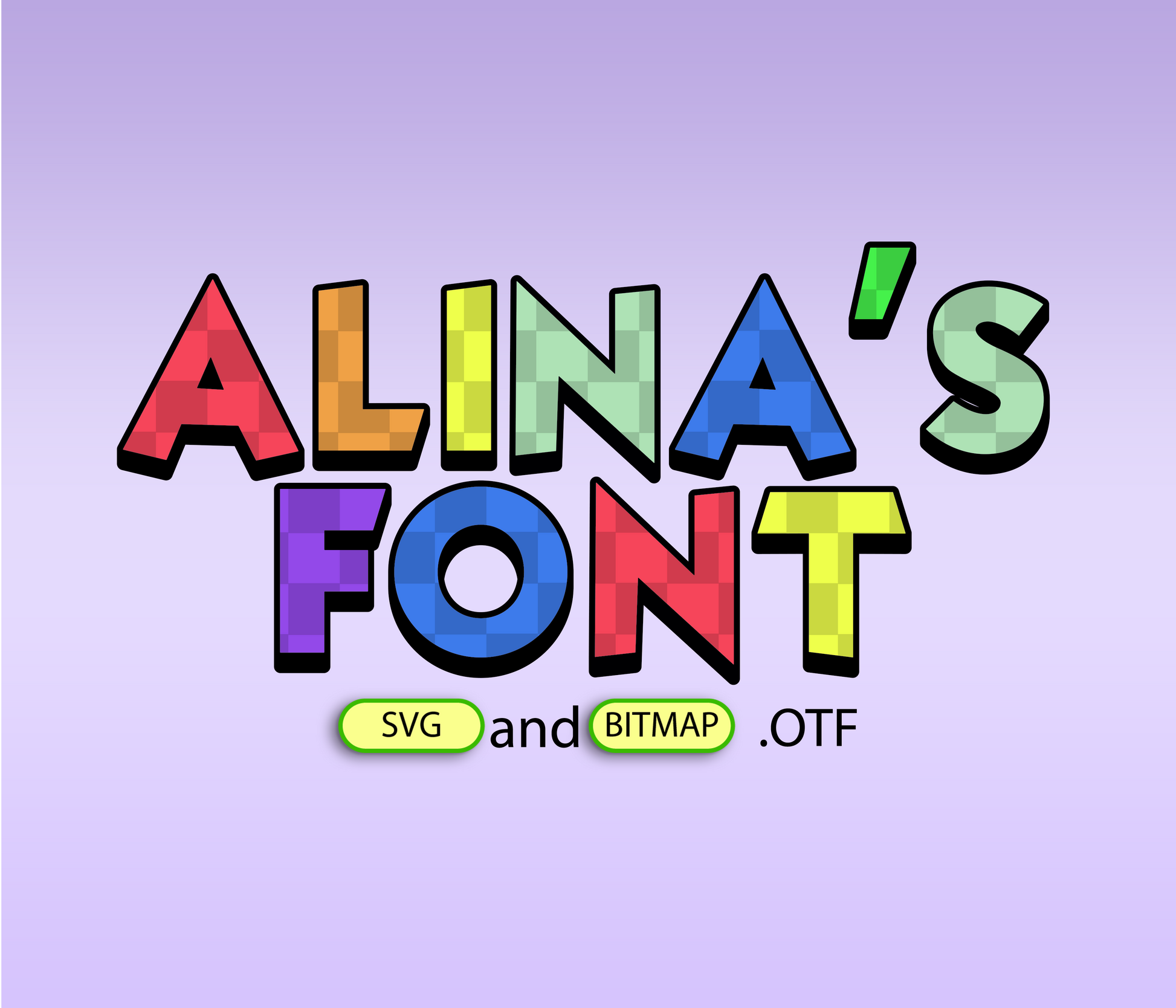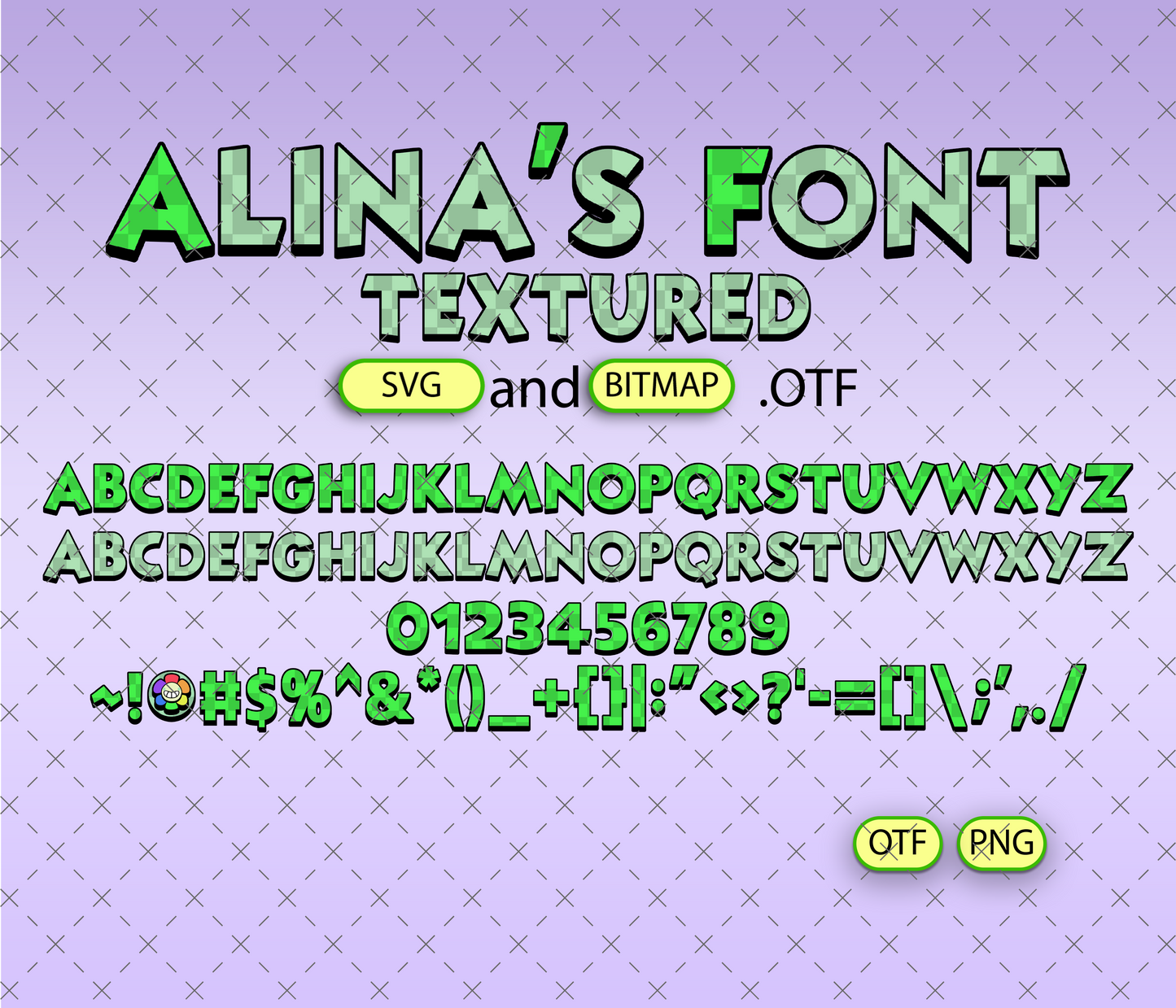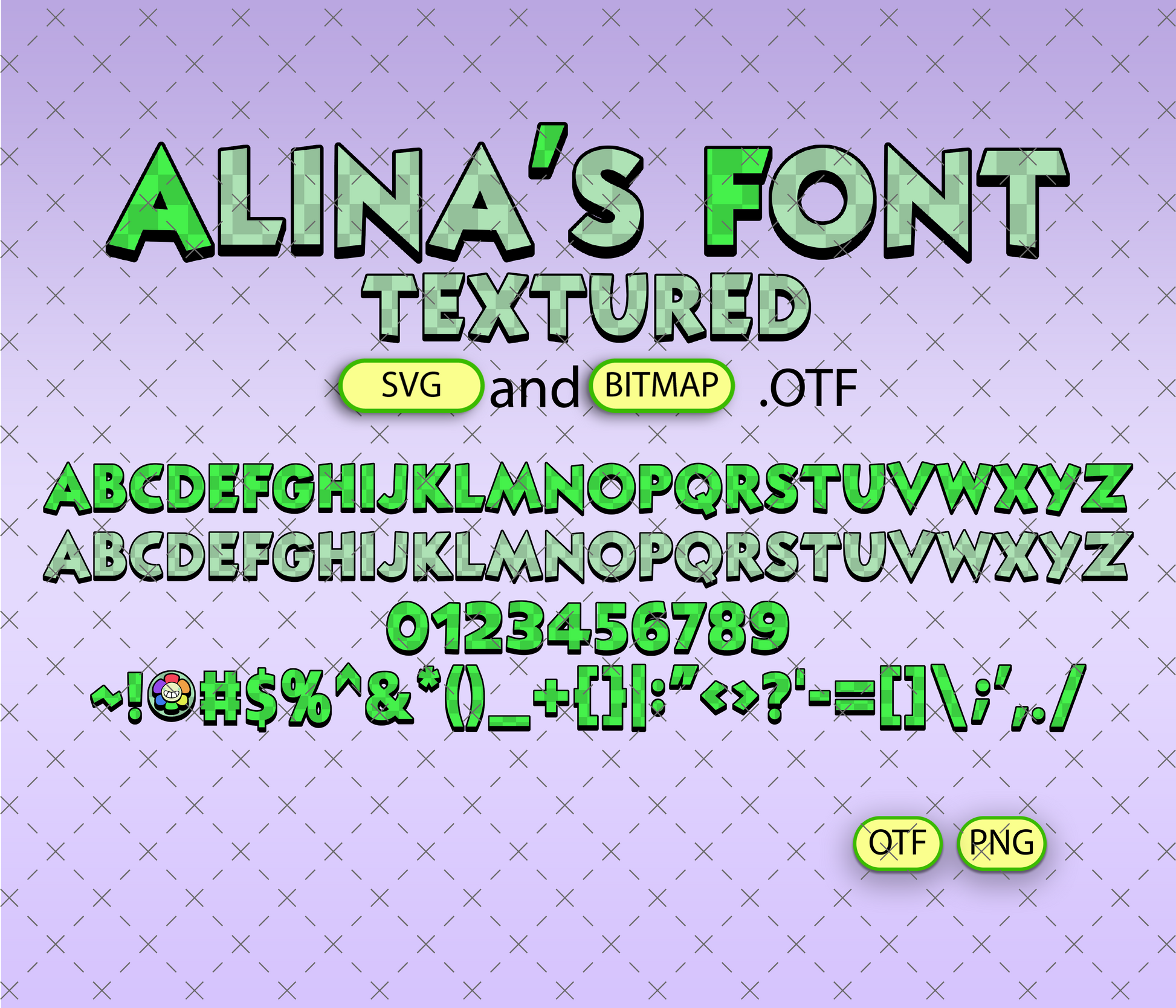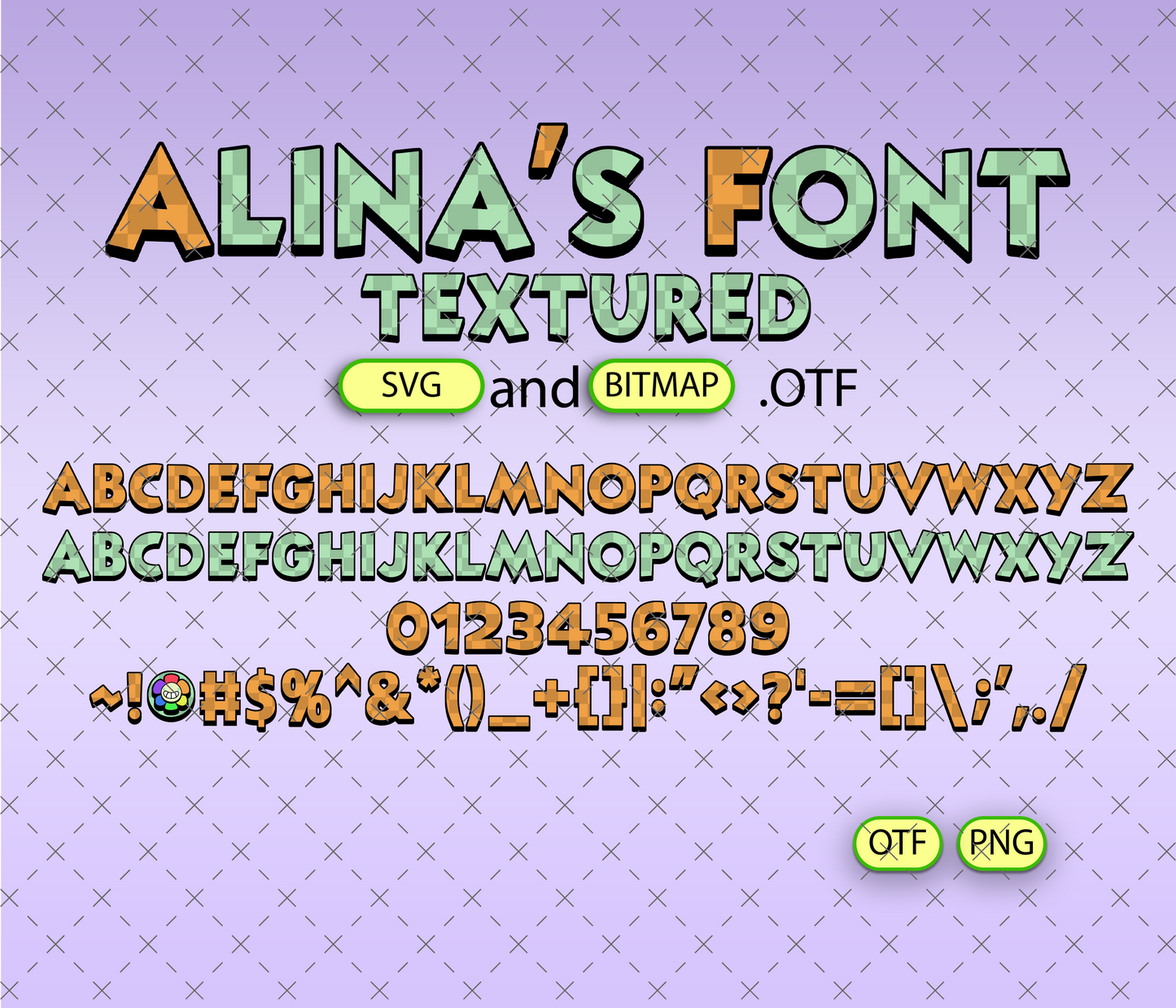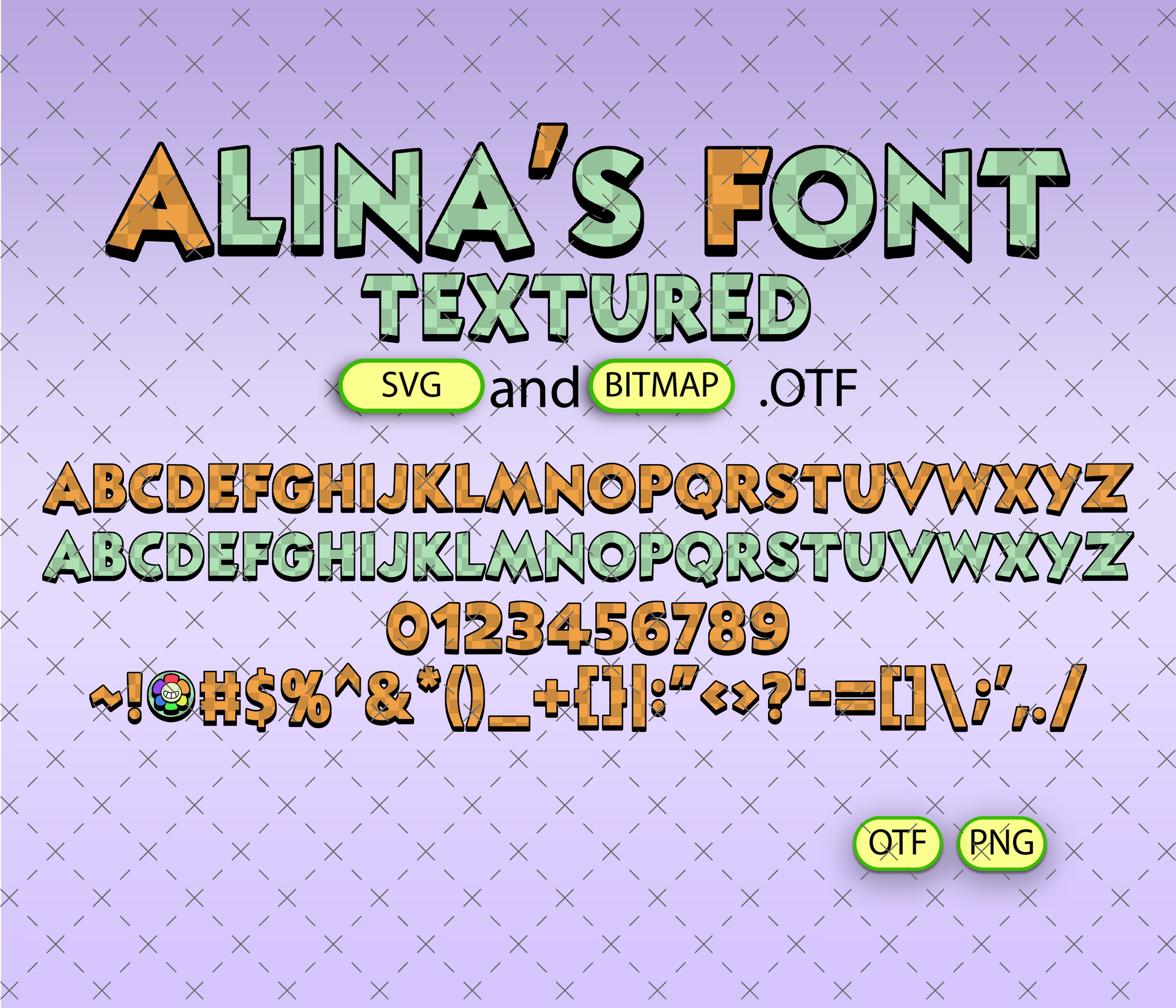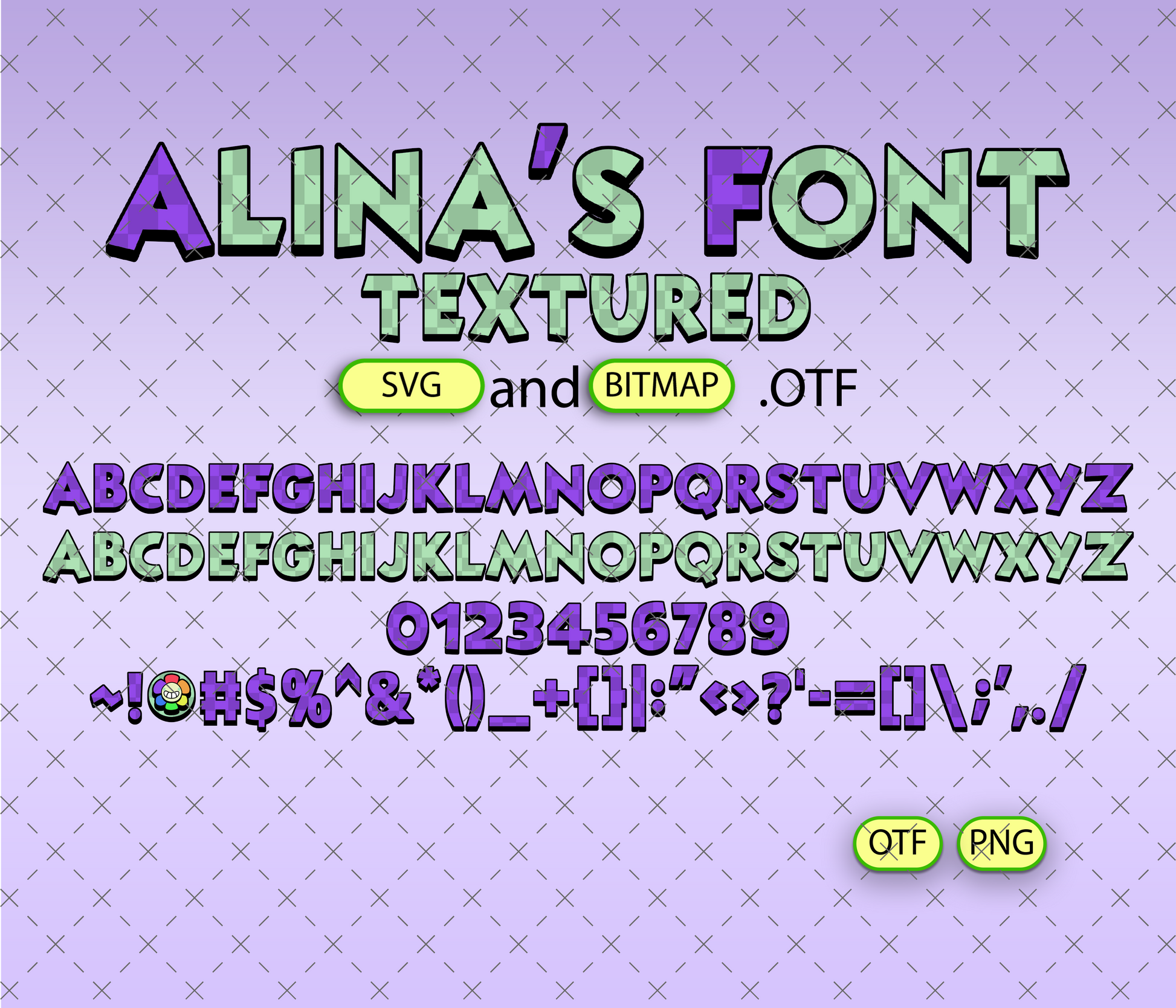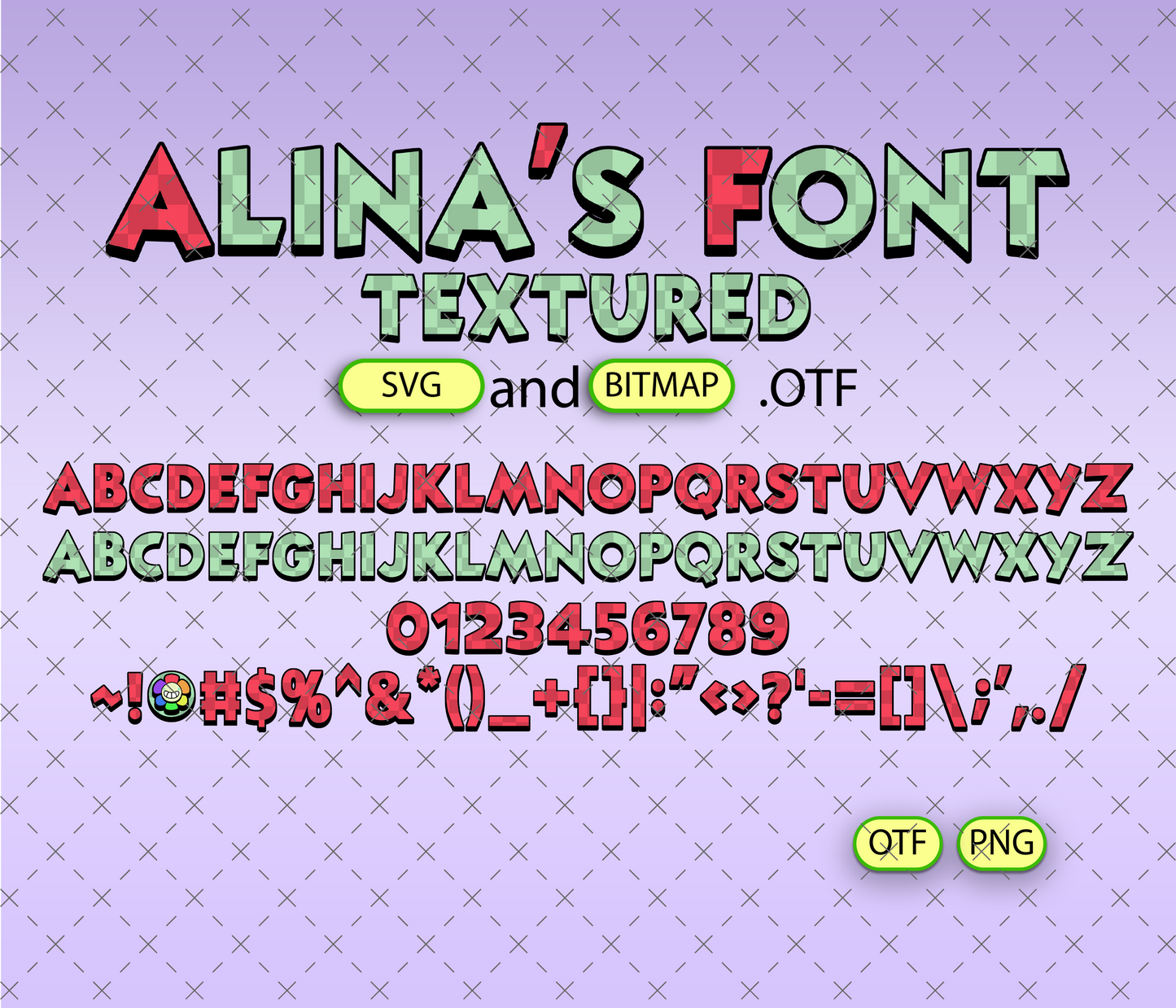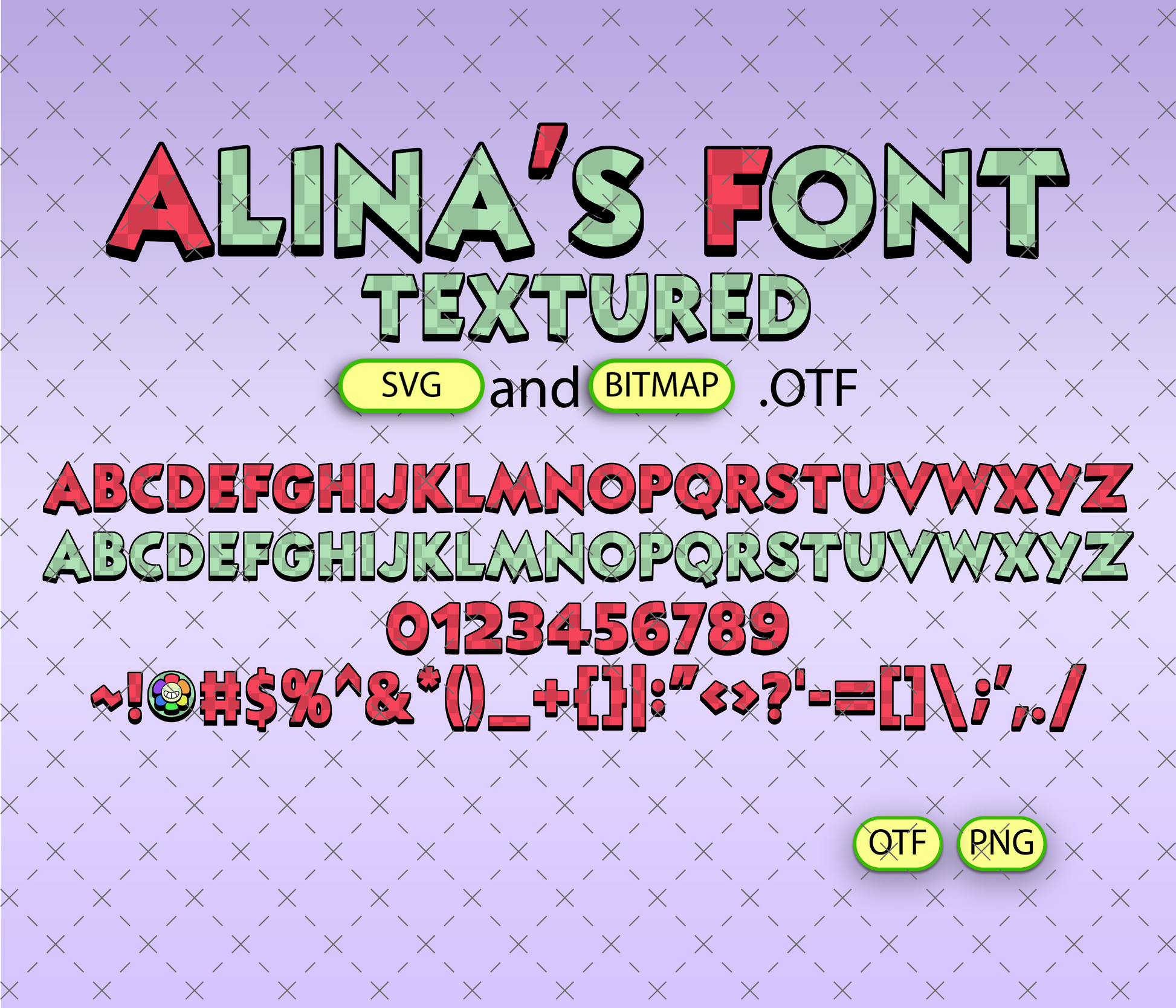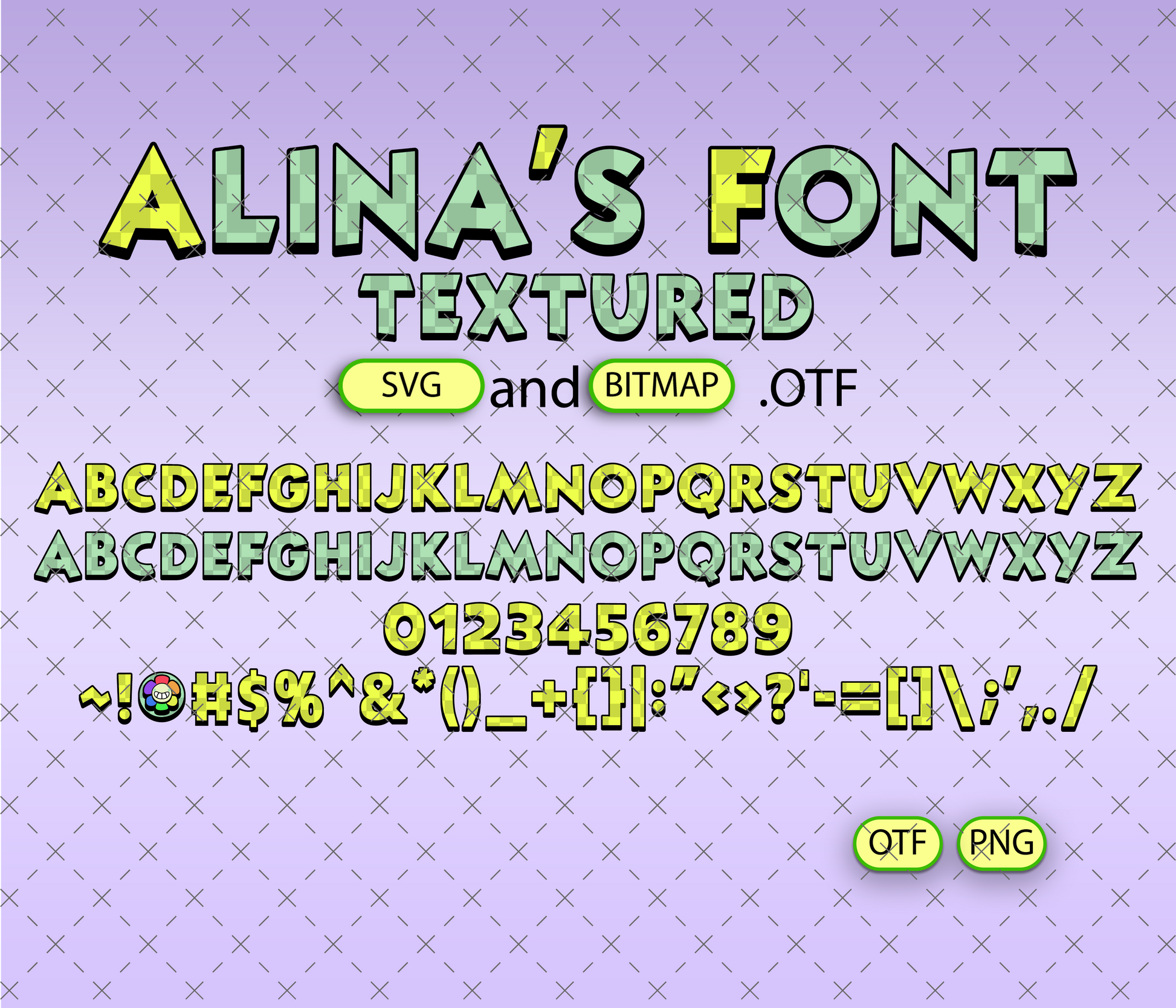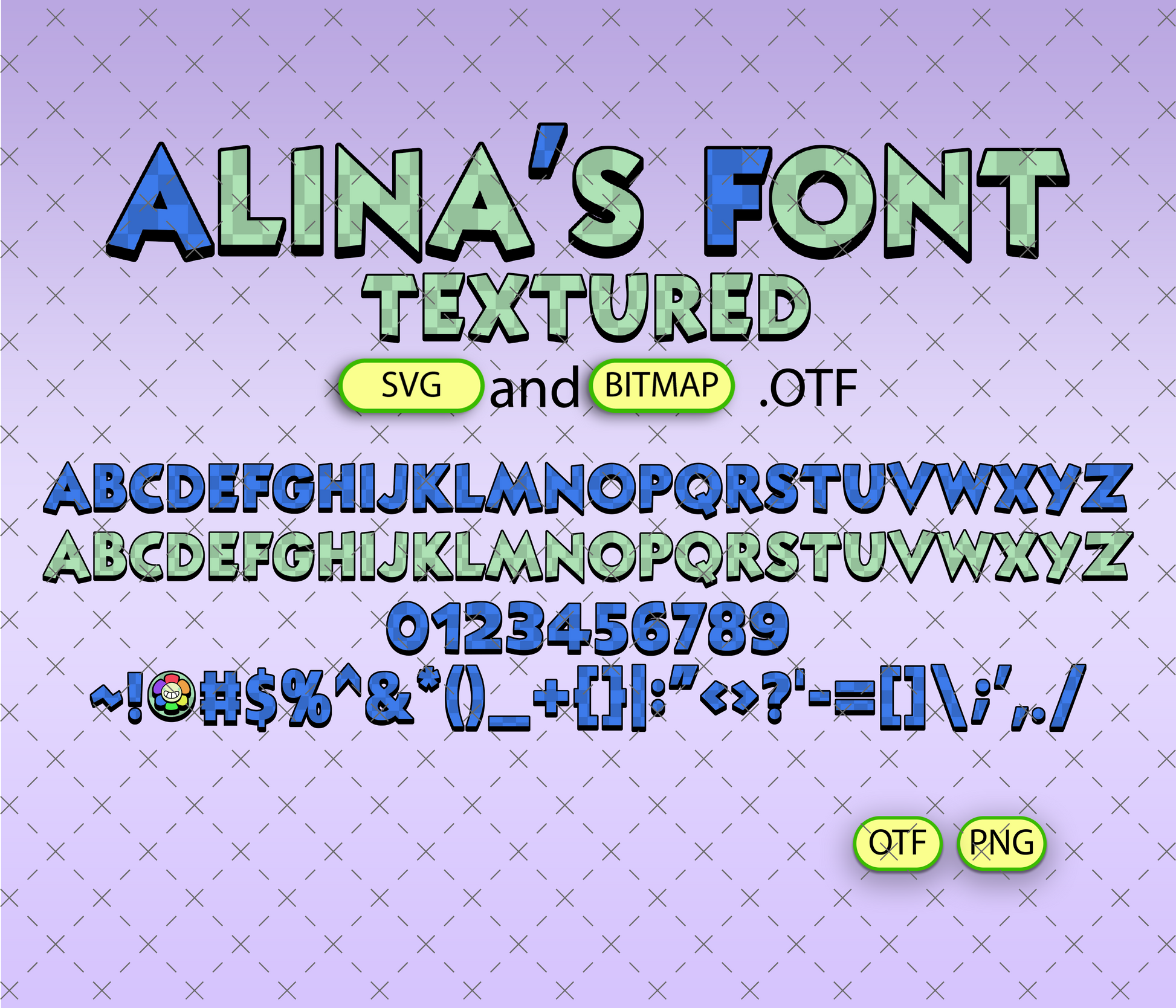
Toon Terror Font Textured Big Bundle
Toon Terror Font Colorful Horror Playground Big Bundle
Step into the twisted world of playful nightmares with our Toon Terror font, capturing the essence of corrupted cartoon characters and eerie childhood games. Perfect for horror gaming events, creepy party themes, indie game designers, and creative professionals, this font brings the unsettling, colorful energy of innocent mascots turned sinister to your projects. Create spine-chilling invitations, horror merchandise, or digital content with the deceptive, cheerful spirit of cartoon worlds hiding dark secrets.
Our Toon Terror font features playful yet unsettling letterforms with cartoon-inspired curves reflecting the deceptive aesthetic of corrupted mascot characters and twisted playground adventures. The characters blend innocent cartoon typography with subtle horror elements, creating perfect fusion of childhood nostalgia and creepy entertainment.
- Horror Gaming Events: Create unnerving invites, posters, and banners for indie horror nights, mascot horror parties, and creepy cartoon gatherings
- Creepy Cartoon Design: Perfect for horror game covers, indie promotions, and twisted mascot party accessories that capture playful terror excitement
- Digital Media: Enhance websites, blogs, and social media with deceptive headers and graphics that express cartoon horror and playground nightmares
- Entertainment Content: Add authentic character to horror materials, mascot designs, and promotional materials for creepy cartoon events
- Personal Projects: Bring toon terror charm to scrapbooking, DIY crafts, and home decor inspired by the aesthetics of corrupted cartoon adventures